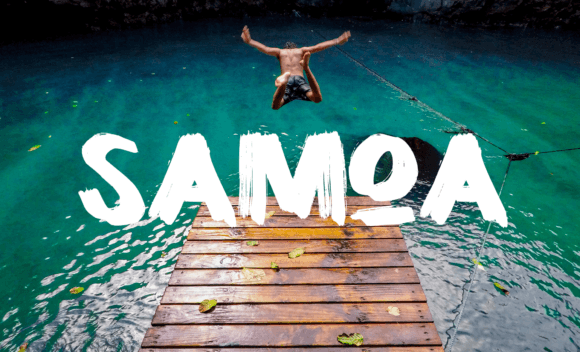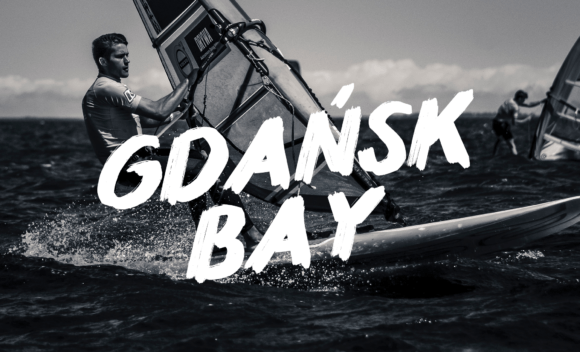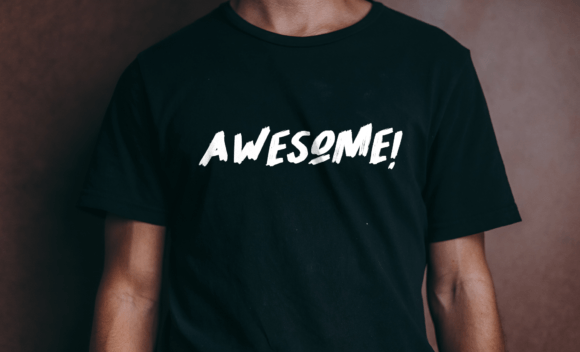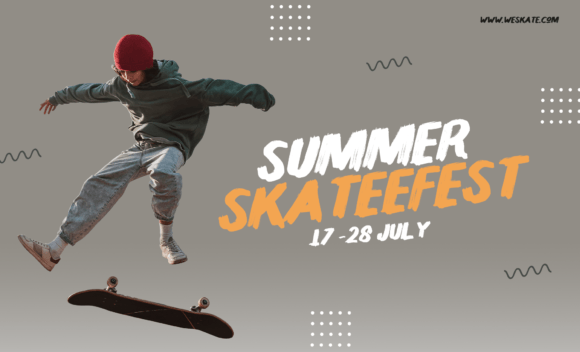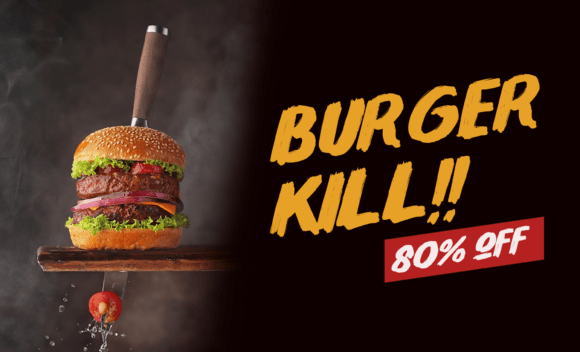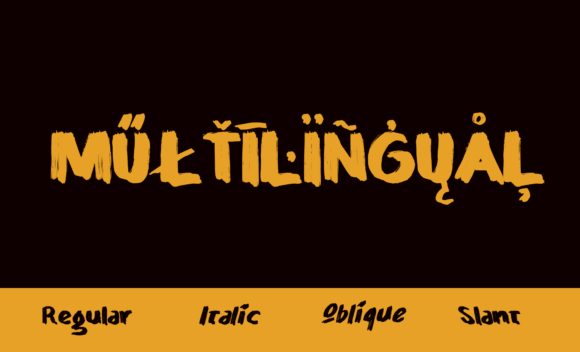
Introduction to Jackloft Font
The moment of truth: you’re staring at a blank canvas, and your creative juices are flowing. You envision a bold, eye-catching design that will leave a lasting impression on your audience. But, that perfect font seems elusive. Well, your search is over – welcome to the Jackloft Font, a game-changing display font that’s sure to elevate your project.
Designed to grab attention, Jackloft Font boasts a unique brush-textured design that’s perfect for adding a touch of excitement to your creative project. Whether you’re working on a high-quality advertising campaign or a free download resource for designers, this font is a valuable asset that will set your design apart from the rest. With its high-quality appearance and transparent background options, Jackloft Font is a must-have for any designer looking to take their project to the next level.
So, what are you waiting for? Dive into the world of Jackloft Font and discover a whole new world of creative possibilities. Get ready to make your message stand out and leave a lasting impression on your audience.
Key Features of Jackloft Font
- Unique and Creative Design: The Jackloft Font is a one-of-a-kind design resource perfect for creative projects that require a touch of elegance and sophistication.
- Transparent Background: The Jackloft Font features a transparent background, making it easy to integrate into any design without the hassle of background removal.
- Perfect for Digital and Print Projects: The Jackloft Font is suitable for both digital and print projects, from social media graphics to business cards and brochures.
Honest Review: Jackloft Font
As a designer, I’m always on the lookout for high-quality fonts that can elevate my creative projects. The Jackloft Font is one such find, and I’m excited to share my thoughts on this design resource.
- ✨ The font’s unique aesthetic is perfect for creative projects that require a touch of sophistication and elegance.
- ✨ The high quality of the font ensures that it will look great on any background, including a transparent background, making it ideal for design projects that require a clean and minimalist look.
- ⚠️ The font’s versatility is somewhat limited, making it best suited for specific design projects rather than a wide range of applications.
Overall, I’m impressed with the Jackloft Font’s potential to add a touch of sophistication to creative projects. While it may have some limitations, its high quality and unique aesthetic make it a valuable design resource worth considering.
Common Use Cases for Jackloft Font
The Jackloft Font is suitable for various design projects, including logos, brochures, and social media graphics. Its transparent background makes it ideal for overlaying text and graphics on images.
Can I use the Jackloft Font for a creative project with a transparent background?
Yes, the Jackloft Font supports transparent backgrounds, making it ideal for creative projects that require a clean and modern look. You can use it for logos, icons, or other design elements with a transparent background.